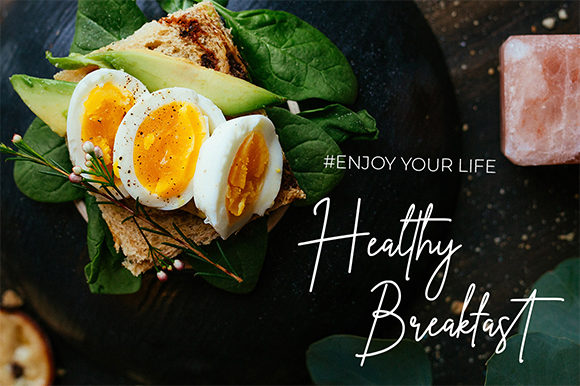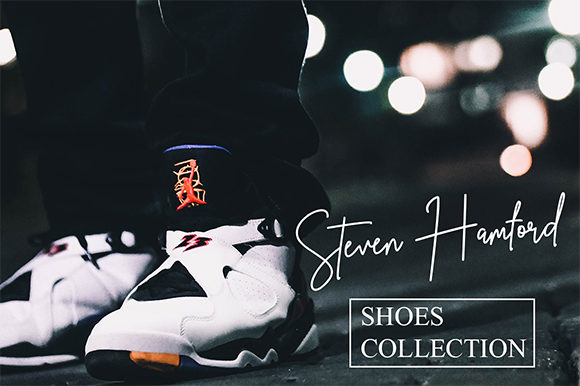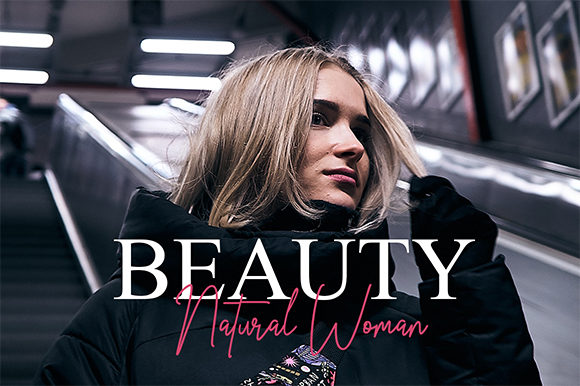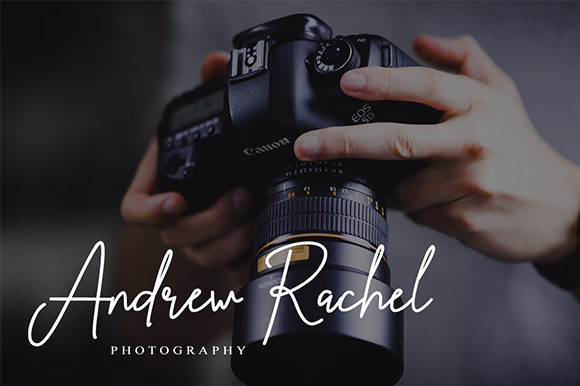
The Suavity Font
About The Suavity Font
The Suavity is a modern handwritten font carefully created with a touch of elegance. This font is the perfect fit for making original and outstanding designs.